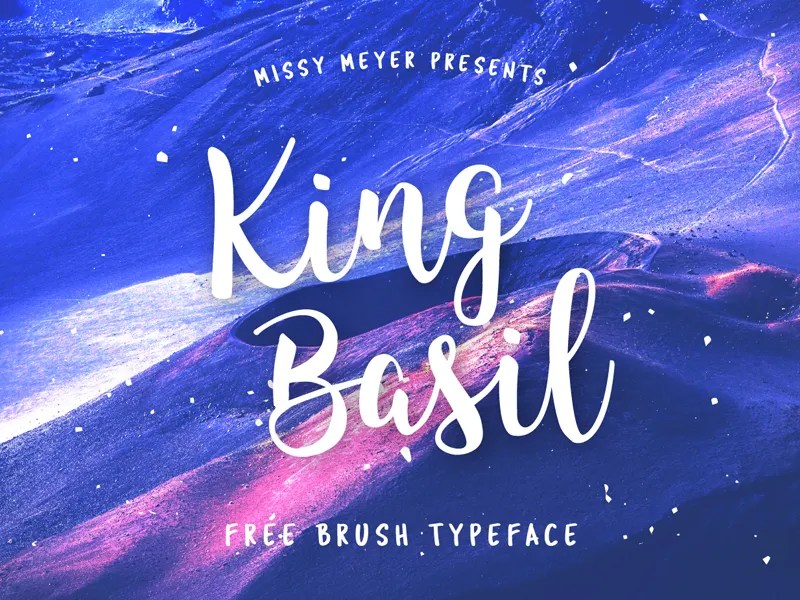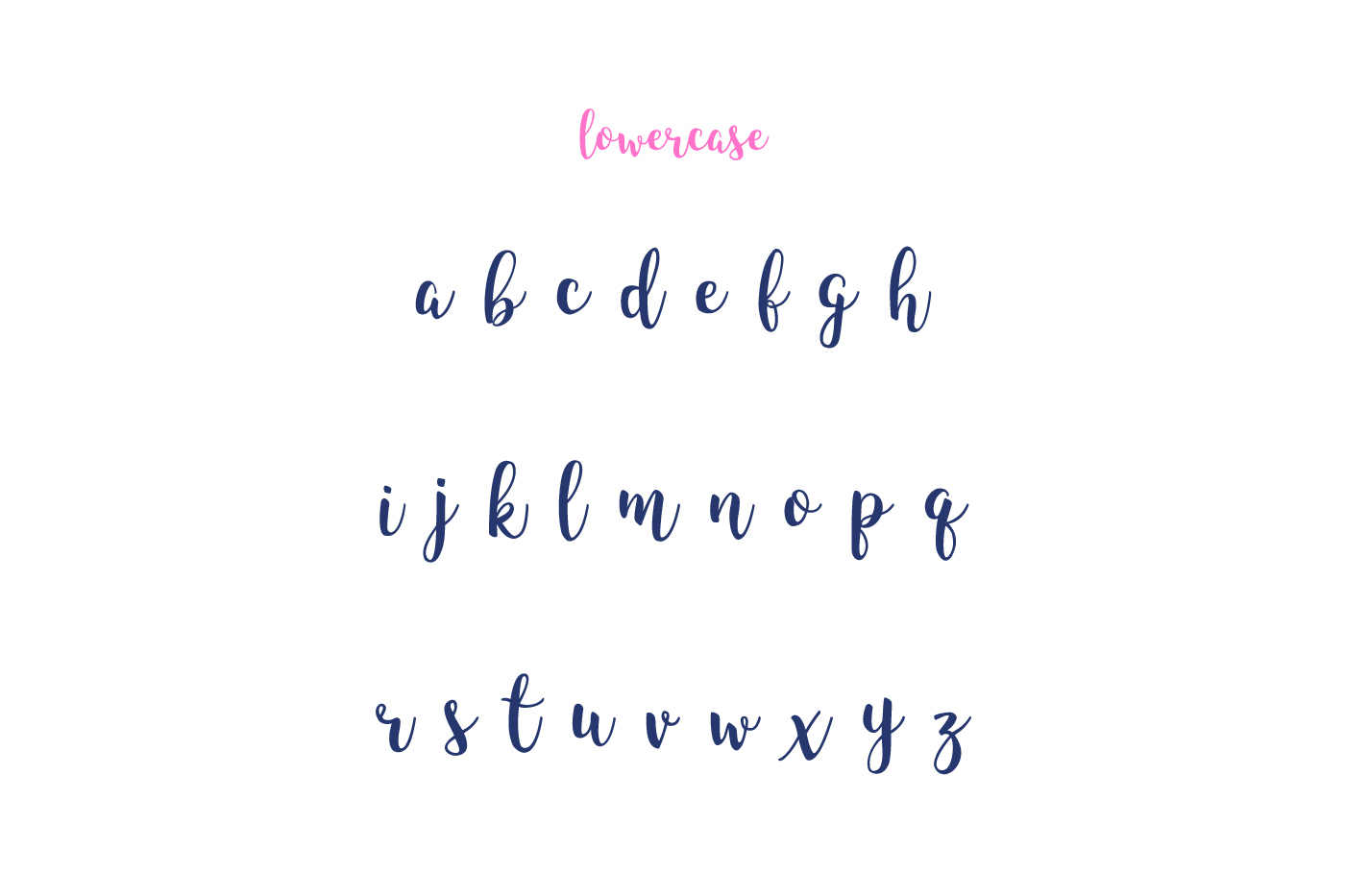
King Basil Font Dafont . You can use of for personal or commercial. This font is from the king basil family and we found 1 variations. Meet king basil, a typeface that goes beyond the ordinary with a rich set of features, boasting 421 meticulously crafted glyphs. Archive of freely downloadable fonts. Click on the page link below to learn more about the variations or click directly on. The time is now 05:04. Browse by alphabetical listing, by style, by author or by popularity. This font is 100% free to used! The time is now 02:30. To learn more about the font and typography of the king basil font, simply enter the text in the field below and click generate. The free king basil lite font is a beautiful handmade brush typeface created by the talented missy meyer. Download the king basil font family. Forum → font identification → back to the list. The online preview allows you to know the fonts without the.
Archive of freely downloadable fonts. Click on the page link below to learn more about the variations or click directly on. Meet king basil, a typeface that goes beyond the ordinary with a rich set of features, boasting 421 meticulously crafted glyphs. The free king basil lite font is a beautiful handmade brush typeface created by the talented missy meyer. The time is now 05:04. To learn more about the font and typography of the king basil font, simply enter the text in the field below and click generate. You can use of for personal or commercial. This font is from the king basil family and we found 1 variations. Forum → font identification → back to the list. The online preview allows you to know the fonts without the.
King Basil Font Dafont The time is now 05:04. Click on the page link below to learn more about the variations or click directly on. Browse by alphabetical listing, by style, by author or by popularity. The time is now 02:30. The free king basil lite font is a beautiful handmade brush typeface created by the talented missy meyer. The online preview allows you to know the fonts without the. You can use of for personal or commercial. To learn more about the font and typography of the king basil font, simply enter the text in the field below and click generate. Download the king basil font family. Meet king basil, a typeface that goes beyond the ordinary with a rich set of features, boasting 421 meticulously crafted glyphs. Archive of freely downloadable fonts. Forum → font identification → back to the list. This font is 100% free to used! This font is from the king basil family and we found 1 variations. The time is now 05:04.
King Font Dafont Free King Basil Font Dafont This font is from the king basil family and we found 1 variations. The time is now 02:30. Browse by alphabetical listing, by style, by author or by popularity. The online preview allows you to know the fonts without the. The time is now 05:04. The free king basil lite font is a beautiful handmade brush typeface created by the. King Basil Font Dafont.
Free fonts Free download fonts King Basil Font Dafont Browse by alphabetical listing, by style, by author or by popularity. Click on the page link below to learn more about the variations or click directly on. The free king basil lite font is a beautiful handmade brush typeface created by the talented missy meyer. Archive of freely downloadable fonts. You can use of for personal or commercial. This font. King Basil Font Dafont.
DLOLLEYS HELP King Basil Free Brush Font King Basil Font Dafont This font is 100% free to used! To learn more about the font and typography of the king basil font, simply enter the text in the field below and click generate. Archive of freely downloadable fonts. This font is from the king basil family and we found 1 variations. The time is now 05:04. Forum → font identification → back. King Basil Font Dafont.
King Basil handmade brush font Brush font, Romantic fonts King Basil Font Dafont This font is 100% free to used! This font is from the king basil family and we found 1 variations. Archive of freely downloadable fonts. Download the king basil font family. To learn more about the font and typography of the king basil font, simply enter the text in the field below and click generate. The time is now 05:04.. King Basil Font Dafont.
King Basil Font UI Freebies King Basil Font Dafont The time is now 02:30. This font is 100% free to used! Forum → font identification → back to the list. To learn more about the font and typography of the king basil font, simply enter the text in the field below and click generate. Download the king basil font family. Meet king basil, a typeface that goes beyond the. King Basil Font Dafont.
King Basil (1597) Calligraphy Font Bundles King Basil Font Dafont This font is from the king basil family and we found 1 variations. Download the king basil font family. The online preview allows you to know the fonts without the. The time is now 02:30. Archive of freely downloadable fonts. You can use of for personal or commercial. The free king basil lite font is a beautiful handmade brush typeface. King Basil Font Dafont.
King Basil Free Brush Font on Behance Free brush, Brush font, Fonts King Basil Font Dafont Meet king basil, a typeface that goes beyond the ordinary with a rich set of features, boasting 421 meticulously crafted glyphs. Download the king basil font family. The time is now 02:30. Browse by alphabetical listing, by style, by author or by popularity. To learn more about the font and typography of the king basil font, simply enter the text. King Basil Font Dafont.
Basillion Font King Basil Font Dafont You can use of for personal or commercial. To learn more about the font and typography of the king basil font, simply enter the text in the field below and click generate. The time is now 02:30. Archive of freely downloadable fonts. Meet king basil, a typeface that goes beyond the ordinary with a rich set of features, boasting 421. King Basil Font Dafont.
King Basil Font Free Download King Basil Font Dafont The online preview allows you to know the fonts without the. Meet king basil, a typeface that goes beyond the ordinary with a rich set of features, boasting 421 meticulously crafted glyphs. The time is now 05:04. Click on the page link below to learn more about the variations or click directly on. Download the king basil font family. You. King Basil Font Dafont.